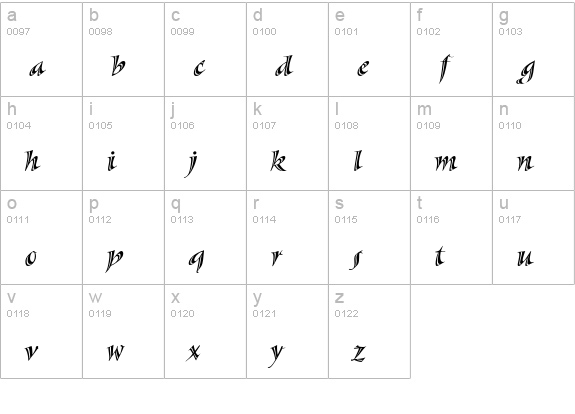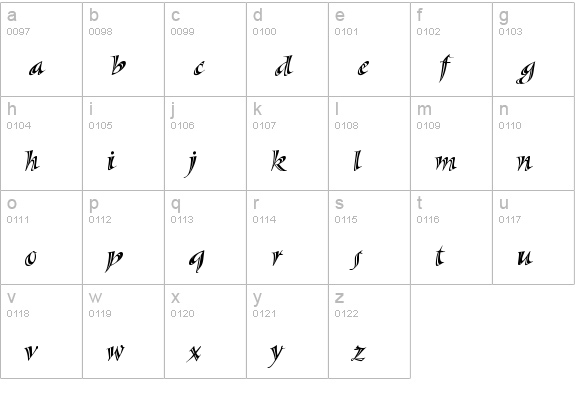
Sassafras Sx Italic is a distinctive, italic variant in the Sassafras typeface family \xE2\x80\x94 well suited to design and typography projects.
Introducing Sassafras Sx Italic, a stunningly elegant font that effortlessly combines modern sophistication with timeless charm. Its delicate and graceful strokes create a sense of fluidity and movement, giving your designs a captivating and dynamic edge. Designed with versatility in mind, Sassafras Sx Italic is perfect for a wide range of projects, from branding and logo design to editorial layouts and social media graphics. Its soft curves and graceful italic letterforms lend a touch of sophistication and refinement, making it ideal for luxury brands, fashion magazines, and high-end products. This font exudes an air of confidence and elegance, making it the perfect choice for those seeking to add a touch of class to their designs. Whether you're creating invitations for a formal event or crafting a stylish website, Sassafras Sx Italic will elevate your design and leave a lasting impression. And the best part? Sassafras Sx Italic is available for free download exclusively at FontsMarket.com. You can harness the power of this exquisite font without breaking the bank, making it accessible to designers of all levels. So why wait? Unleash your creativity and download Sassafras Sx Italic today to bring a touch of timeless beauty to your designs.